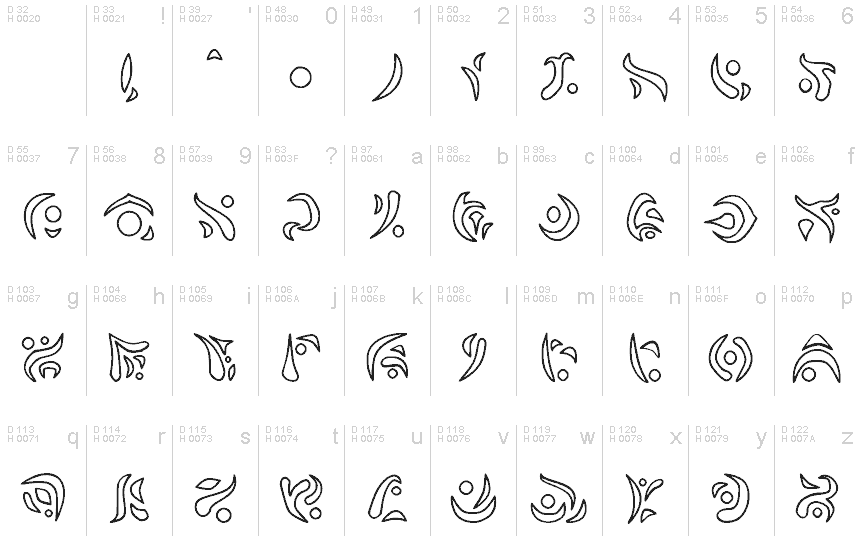
Navalar Regular
Navalar is a delightfully playful dingbats font that exudes a sense of whimsy and charm. Designed by Cid Cruz, this font boasts a distinctive style characterized by its fluid, organic shapes and subtly curving lines. Its versatile nature lends itself well to a variety of design applications, from decorative headings and playful icons to adding a touch of personality to branding and packaging.
Navalar's unique aesthetic makes it a captivating choice for projects seeking to convey a lighthearted, approachable tone, whether in print or digital mediums.